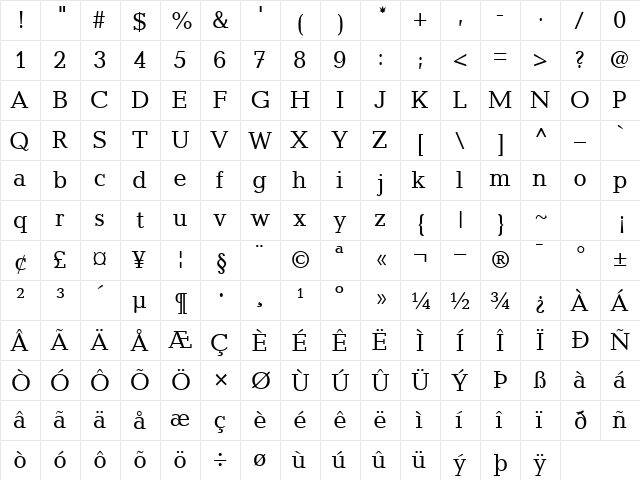
MatiqueSSK Regular
Design Context for MatiqueSSK Typeface
MatiqueSSK offers clean, dependable letterforms without strong stylistic allegiance, making it a practical choice for designers who need flexibility.
Pro Tip: Use MatiqueSSK in both headline and body roles to test its range before committing to a single application.